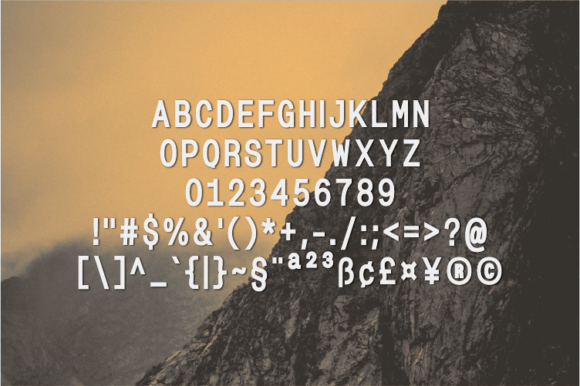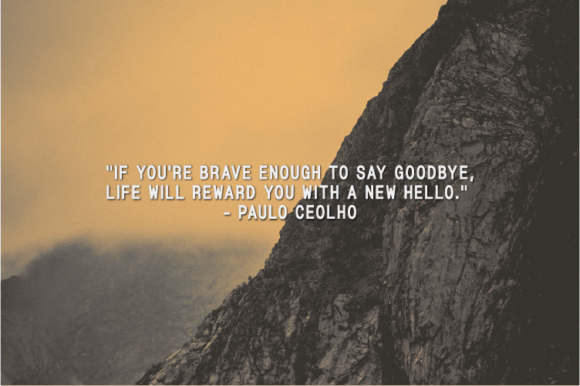
Introduction to Delvith Font
You know that feeling when you’re working on a creative project, and you just can’t seem to find the perfect font to bring your vision to life? The frustration of scrolling through endless options, only to settle for something that’s just okay. Well, we’re here to tell you that those days are behind you with the introduction of the Delvith Font.
This beautiful, minimal sans serif font is a game-changer for designers of all levels. With its neat and simple style, Delvith Font is the perfect design resource for any project, whether you’re working on a logo, brochure, or website. And the best part? It’s available for free download, so you can get creative without breaking the bank.
Whether you’re a seasoned pro or just starting out, Delvith Font is a high-quality addition to any design arsenal. Its versatility and clean design make it perfect for a wide range of applications, from digital designs to print materials. So why settle for an average font when you can have a high-quality one like Delvith Font? With its transparent background and simple style, it’s the perfect choice for any creative project.
- High-quality, professional design for creative projects and presentations.
- Comes with transparent background option, allowing for seamless integration with various design elements.
- Delvith Font is designed with a high-resolution, 300 DPI, ensuring crisp and clear text display.
- Unique, elegant design that can be used in a variety of creative projects, from branding and marketing materials to digital and print media.
Honest Review: Delvith Font
I recently came across the Delvith Font, a high-quality design resource that’s perfect for creative projects. One of the standout features is its transparent background, which makes it easy to use as a overlay or texture in your designs. ✨
What I appreciate most about this font is its versatility. It’s available for free download, which is a major plus for designers on a budget. The font itself is elegant and sophisticated, making it suitable for a wide range of applications, from logos to brochures.
Here are some of the key features that make Delvith Font a valuable addition to your design arsenal:
- Sophisticated and elegant design
- No bold or italic versions available
- Not suitable for very small text sizes
Overall, I’m impressed with Delvith Font. It’s a solid choice for designers looking for a high-quality, free design resource. While it may have some limitations, its versatility and elegant design make it a valuable addition to any design library.
Delvith Font
The Delvith Font is a versatile and high-quality design resource perfect for creative projects. With its transparent background, it can be easily integrated into various digital platforms.
The Delvith Font is suitable for various creative projects, such as:
1. Social media graphics
2. Brochures and flyers
3. Business cards and letterheads
Tips for Getting the Most Out of Delvith Font
1. Experiment with different font sizes and styles to create visually appealing designs.
2. Combine the Delvith Font with other design elements, such as images and graphics, to create a cohesive look.
3. Use the transparent background feature to create a seamless integration with other design elements.